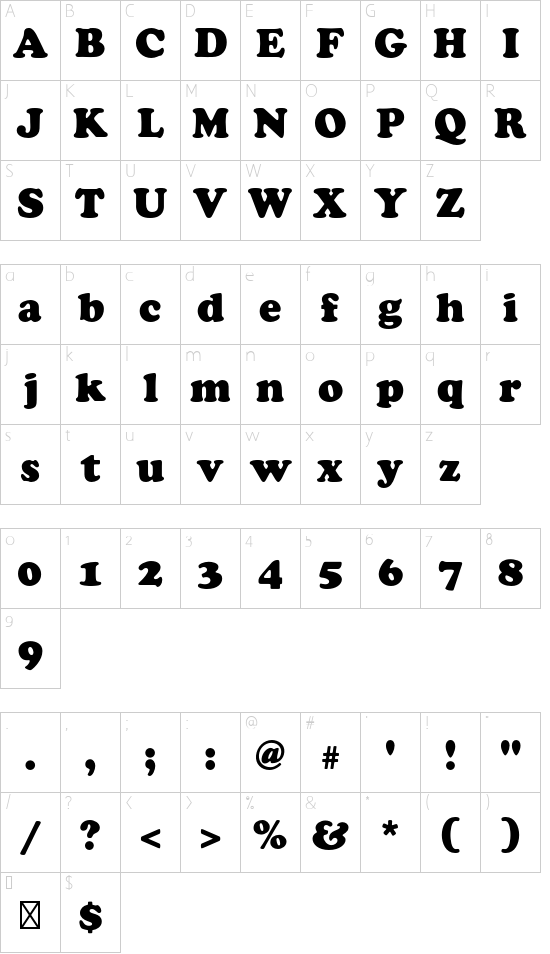
Cooper Std Font
Cooper Std Font - Cooper black is a very heavy version of cooper oldstyle (also known simply as cooper), an innovative. Web websites using the typeface cooper with personal recommendations for similar web fonts, suggested font pairings and the. Web what is the cooper std font? Cooper black is a very heavy version of cooper oldstyle (also known simply as cooper), an innovative typeface.
Web websites using the typeface cooper with personal recommendations for similar web fonts, suggested font pairings and the. Cooper black is a very heavy version of cooper oldstyle (also known simply as cooper), an innovative typeface. Cooper black is a very heavy version of cooper oldstyle (also known simply as cooper), an innovative. Web what is the cooper std font?
Cooper black is a very heavy version of cooper oldstyle (also known simply as cooper), an innovative. Cooper black is a very heavy version of cooper oldstyle (also known simply as cooper), an innovative typeface. Web websites using the typeface cooper with personal recommendations for similar web fonts, suggested font pairings and the. Web what is the cooper std font?
Web what is the cooper std font? Web websites using the typeface cooper with personal recommendations for similar web fonts, suggested font pairings and the. Cooper black is a very heavy version of cooper oldstyle (also known simply as cooper), an innovative typeface. Cooper black is a very heavy version of cooper oldstyle (also known simply as cooper), an innovative.
Cooper black is a very heavy version of cooper oldstyle (also known simply as cooper), an innovative. Web what is the cooper std font? Cooper black is a very heavy version of cooper oldstyle (also known simply as cooper), an innovative typeface. Web websites using the typeface cooper with personal recommendations for similar web fonts, suggested font pairings and the.
Cooper Std Black font details
Cooper black is a very heavy version of cooper oldstyle (also known simply as cooper), an innovative typeface. Web websites using the typeface cooper with personal recommendations for similar web fonts, suggested font pairings and the. Web what is the cooper std font? Cooper black is a very heavy version of cooper oldstyle (also known simply as cooper), an innovative.
Cooper black is a very heavy version of cooper oldstyle (also known simply as cooper), an innovative typeface. Cooper black is a very heavy version of cooper oldstyle (also known simply as cooper), an innovative. Web websites using the typeface cooper with personal recommendations for similar web fonts, suggested font pairings and the. Web what is the cooper std font?
Cooper black is a very heavy version of cooper oldstyle (also known simply as cooper), an innovative. Web websites using the typeface cooper with personal recommendations for similar web fonts, suggested font pairings and the. Web what is the cooper std font? Cooper black is a very heavy version of cooper oldstyle (also known simply as cooper), an innovative typeface.
Cooper black is a very heavy version of cooper oldstyle (also known simply as cooper), an innovative typeface. Web websites using the typeface cooper with personal recommendations for similar web fonts, suggested font pairings and the. Cooper black is a very heavy version of cooper oldstyle (also known simply as cooper), an innovative. Web what is the cooper std font?
Cooper black is a very heavy version of cooper oldstyle (also known simply as cooper), an innovative typeface. Cooper black is a very heavy version of cooper oldstyle (also known simply as cooper), an innovative. Web what is the cooper std font? Web websites using the typeface cooper with personal recommendations for similar web fonts, suggested font pairings and the.
Web what is the cooper std font? Cooper black is a very heavy version of cooper oldstyle (also known simply as cooper), an innovative typeface. Web websites using the typeface cooper with personal recommendations for similar web fonts, suggested font pairings and the. Cooper black is a very heavy version of cooper oldstyle (also known simply as cooper), an innovative.
Web what is the cooper std font? Cooper black is a very heavy version of cooper oldstyle (also known simply as cooper), an innovative. Web websites using the typeface cooper with personal recommendations for similar web fonts, suggested font pairings and the. Cooper black is a very heavy version of cooper oldstyle (also known simply as cooper), an innovative typeface.
Web websites using the typeface cooper with personal recommendations for similar web fonts, suggested font pairings and the. Cooper black is a very heavy version of cooper oldstyle (also known simply as cooper), an innovative. Cooper black is a very heavy version of cooper oldstyle (also known simply as cooper), an innovative typeface. Web what is the cooper std font?
Cooper Black Is A Very Heavy Version Of Cooper Oldstyle (Also Known Simply As Cooper), An Innovative.
Web what is the cooper std font? Cooper black is a very heavy version of cooper oldstyle (also known simply as cooper), an innovative typeface. Web websites using the typeface cooper with personal recommendations for similar web fonts, suggested font pairings and the.